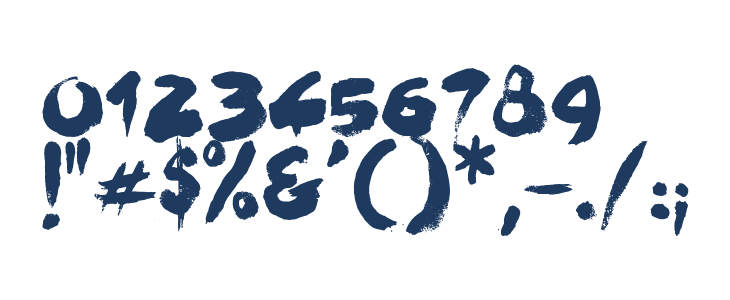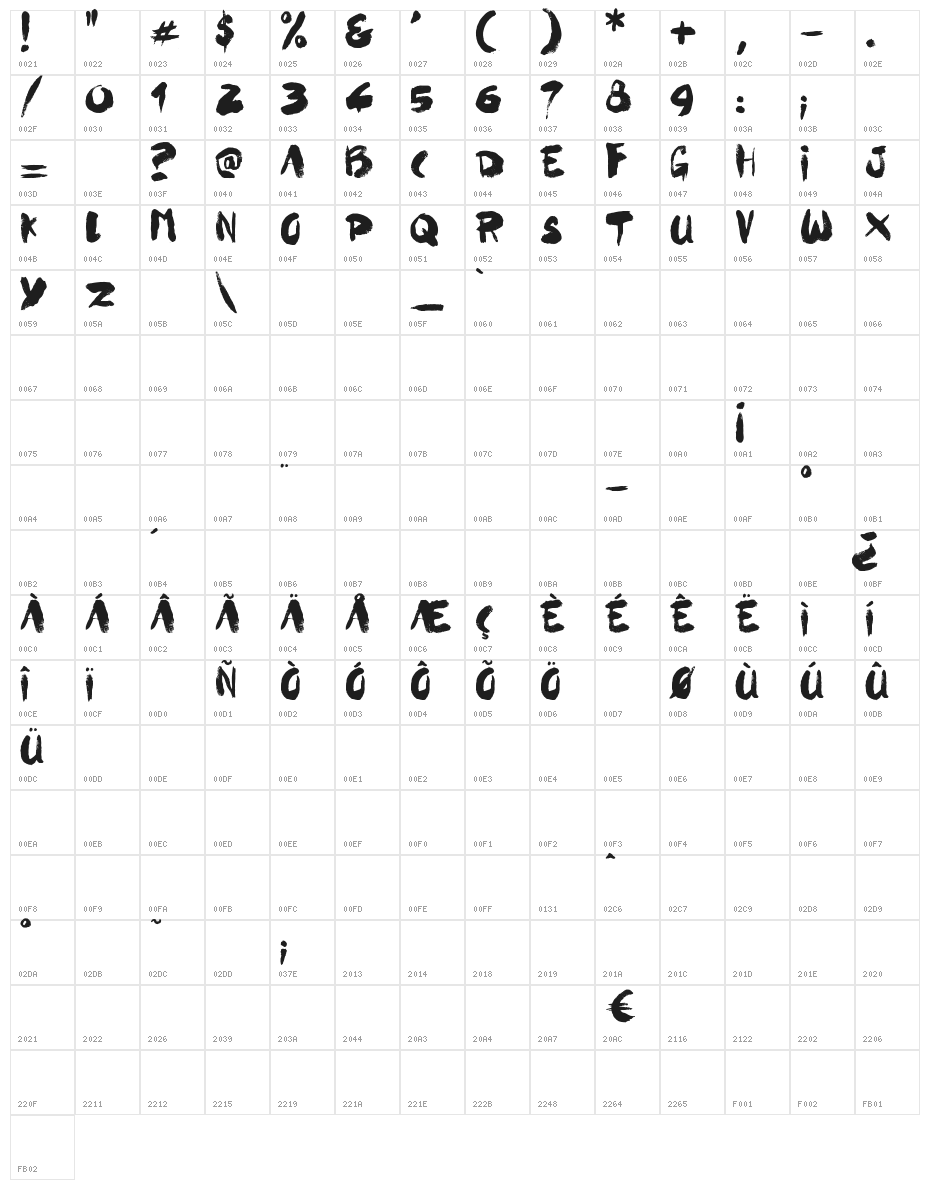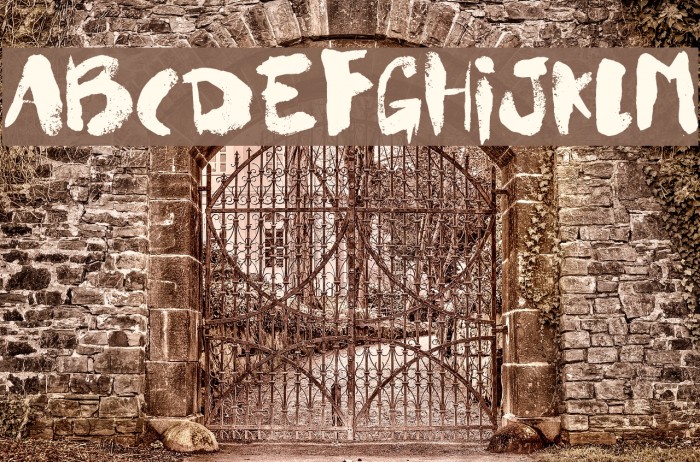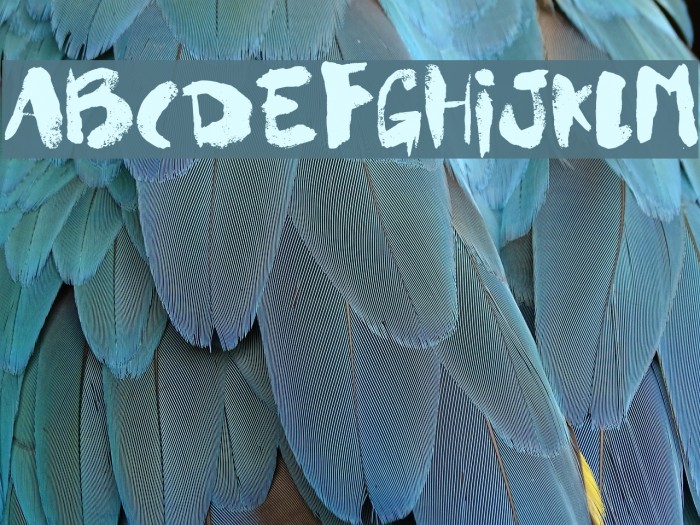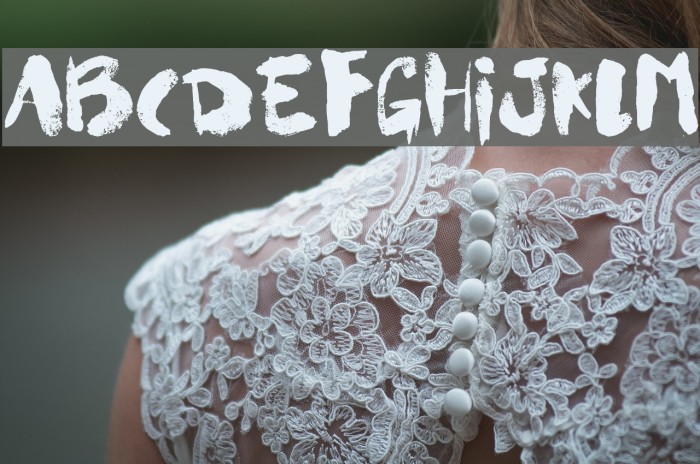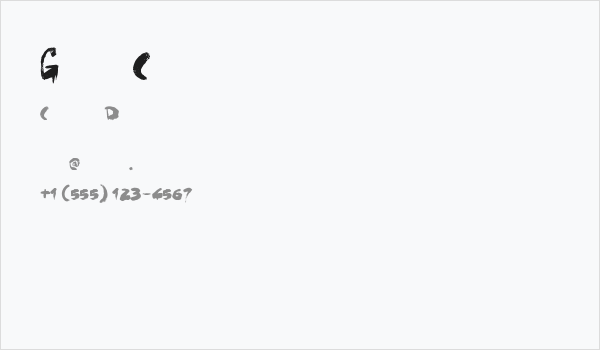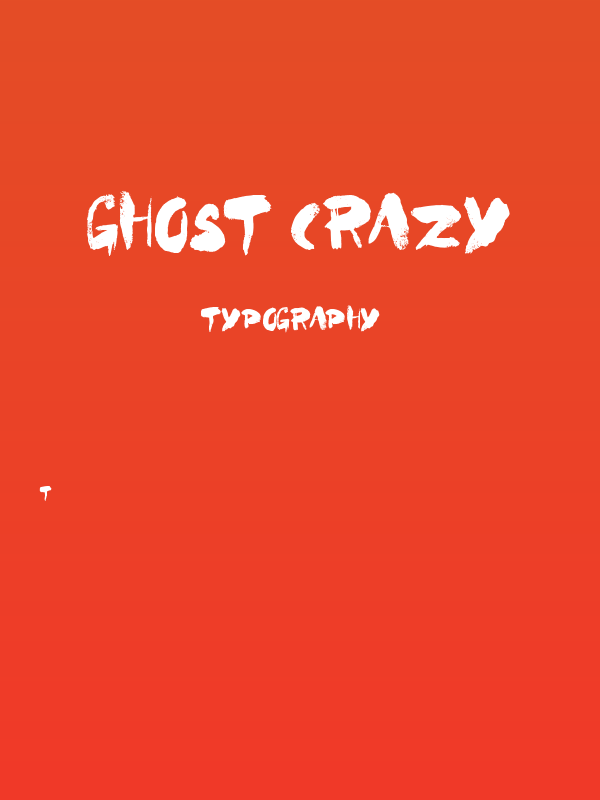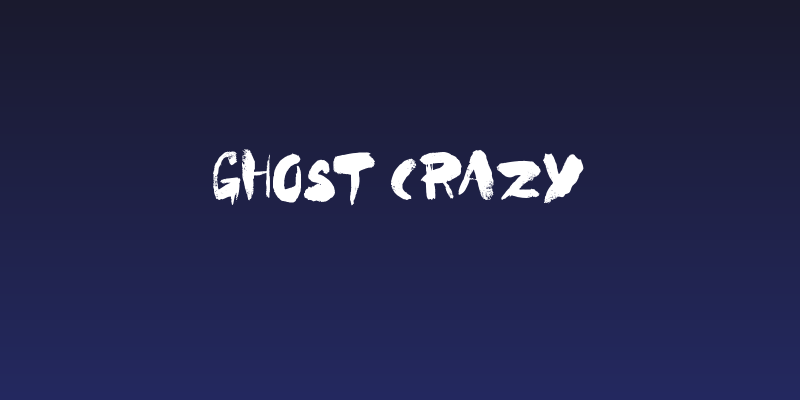
Ghost Crazy Font
Ghost Crazy Description
This font features a bold and expressive style, reminiscent of brush strokes with a slightly chaotic and artistic flair. The characters are uneven and dynamic, giving a sense of movement and energy. The uppercase and lowercase letters maintain a consistent style, with thick strokes and rough edges that suggest a hand-painted look. Numbers and special characters follow the same aesthetic, ensuring a cohesive appearance across all glyphs. This font is ideal for projects that require a bold statement or a creative touch, such as posters, album covers, or artistic branding.
| Overall Style | Artistic, Expressive |
| Use Case | Headlines, Logos, Artistic projects |
| Proposed Projects | Ideal for posters, album covers, artistic branding, and creative projects. |